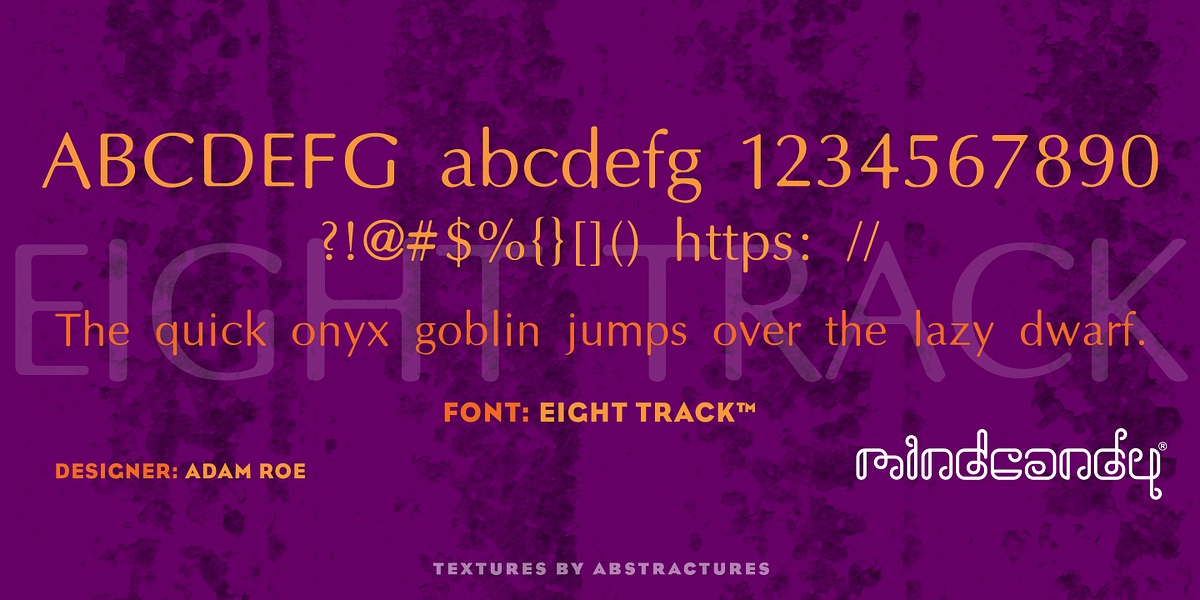
Eight Track™
This rounded sans serif font, designed by Adam Roe, is well-suited for display purposes like headlines and posters. Its friendly and approachable aesthetic makes it a good choice for projects targeting a wide audience.